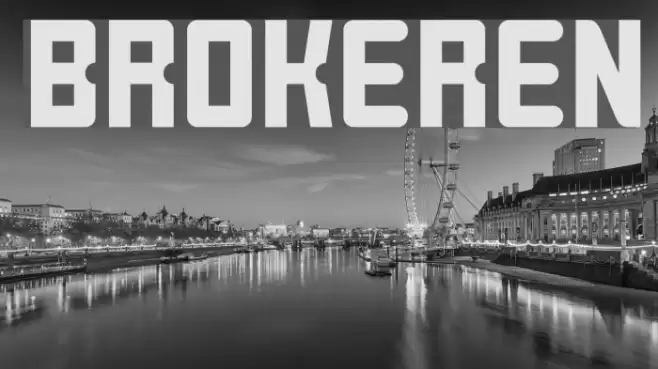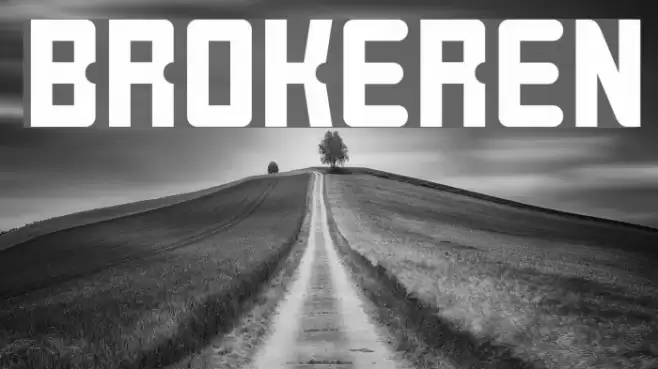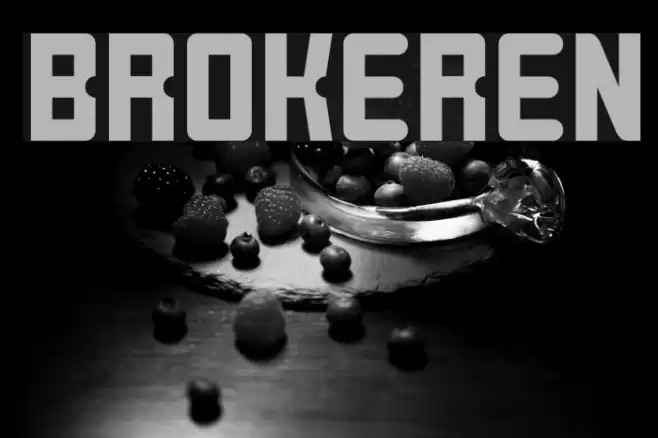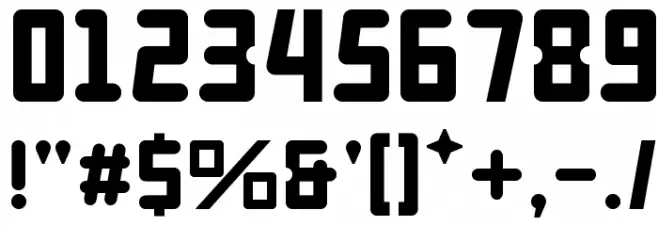
BROKEREN Font
BROKEREN Description
This font features a bold, geometric design with a distinct modern flair. The characters are constructed with uniform stroke widths, giving them a strong and sturdy appearance. The uppercase letters are particularly striking, with angular edges and a consistent height that creates a cohesive look. The lowercase letters maintain this geometric style, ensuring readability while adding a touch of uniqueness. Numbers and special characters are designed to match the overall aesthetic, making this font versatile for various uses. The spacing between characters is tight, enhancing the compact and impactful nature of the typeface.
A bold, geometric font with uniform strokes and tight spacing, ideal for modern designs from Uncategorized fonts.
- Proposed Projects: This font is perfect for branding projects, logo design, posters, and headlines where a strong, modern look is desired.
- Character Spacing: Tight